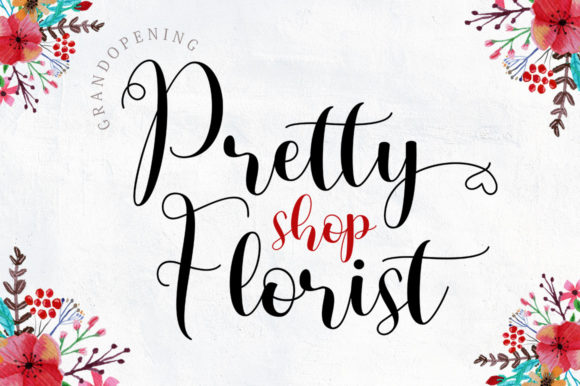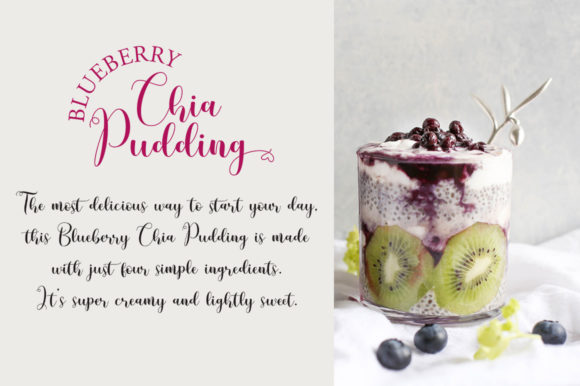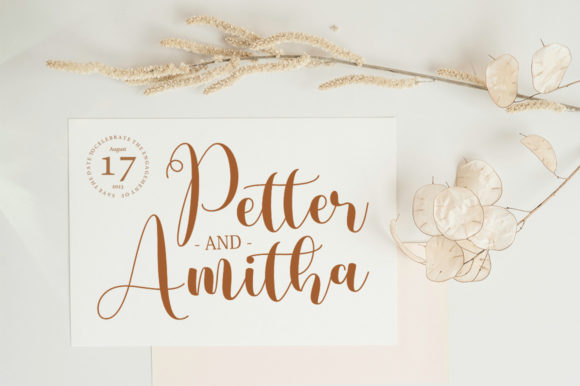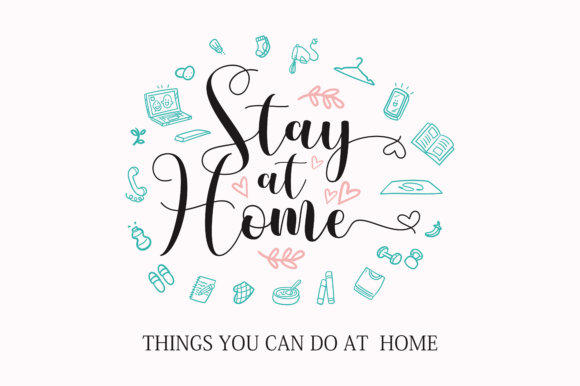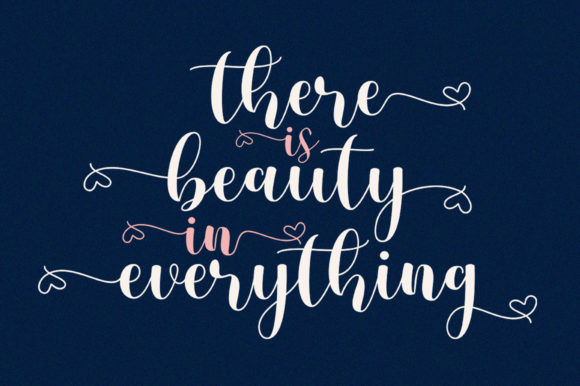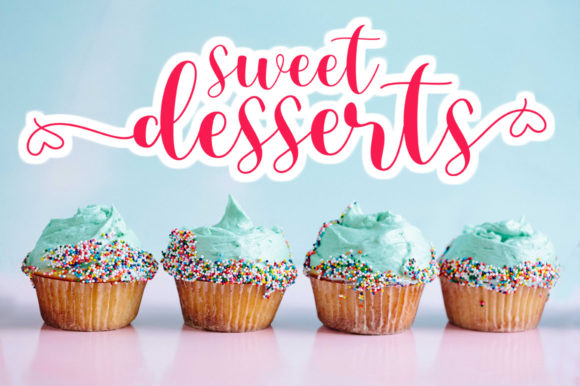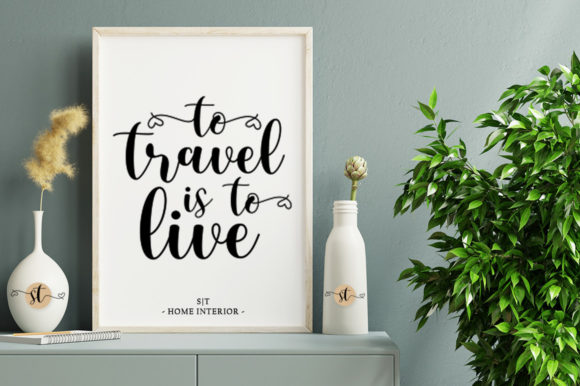
Better Restay Font
About Better Restay Font
Better Restay is a unique and elegant handwritten font. It looks beautiful on a variety of designs requiring a personalized style, such as wedding invitations, thank you cards, weddings, greeting cards, logos and so on.